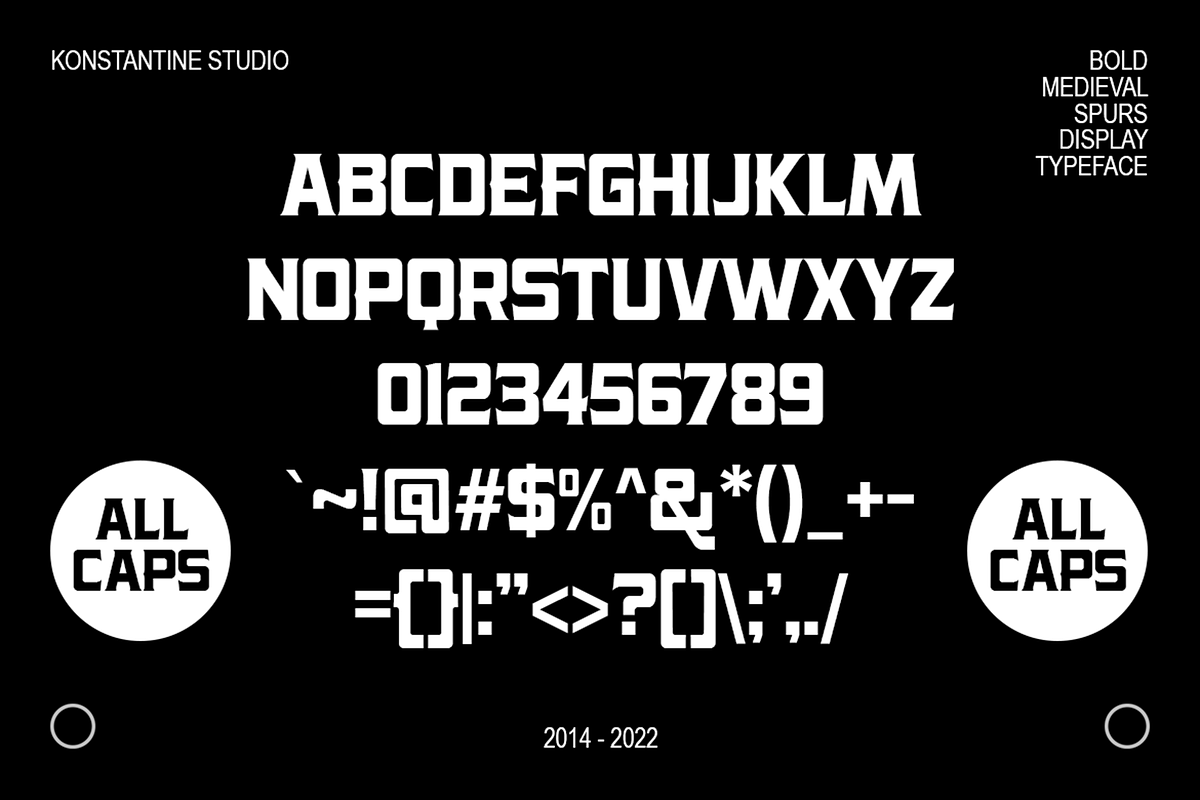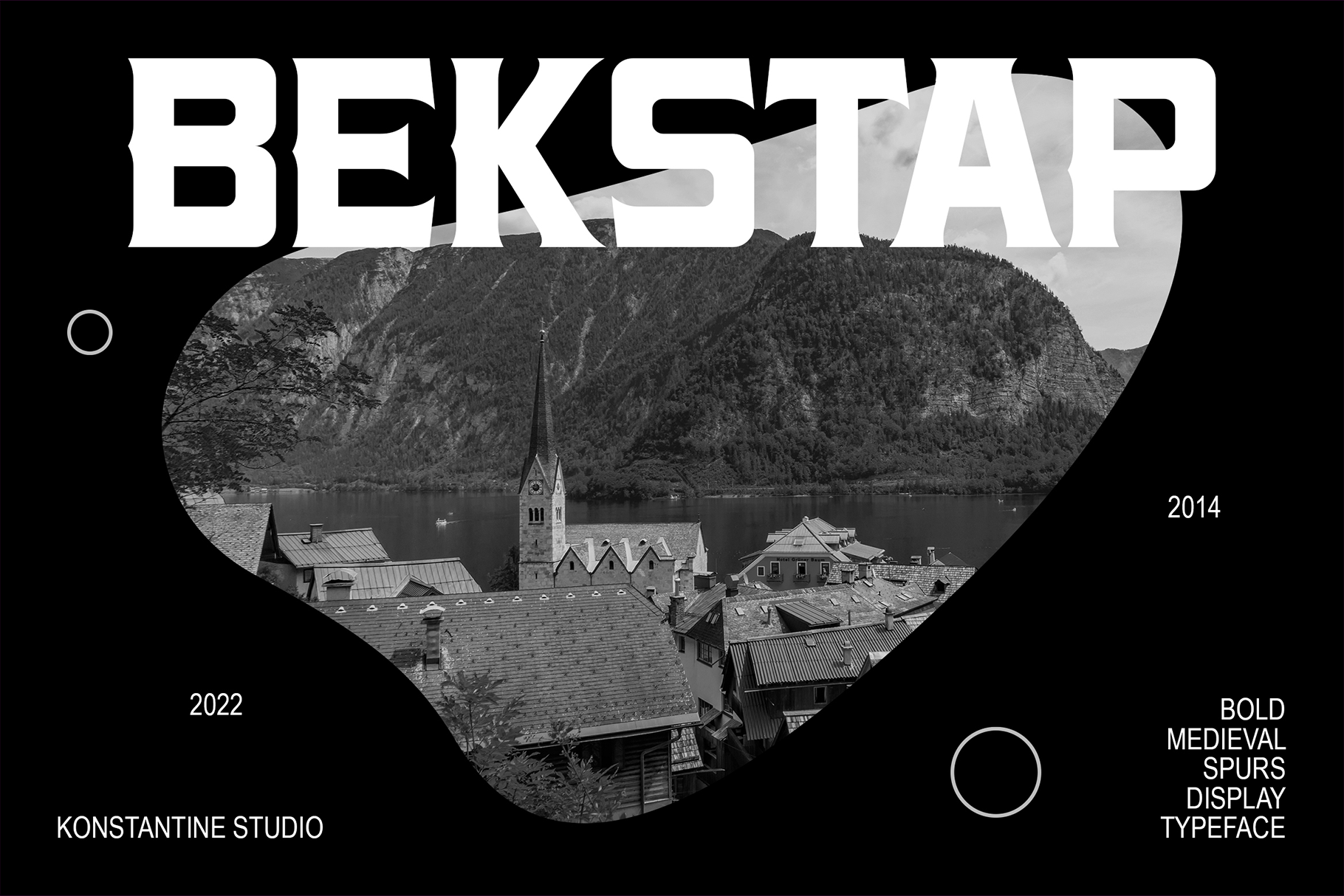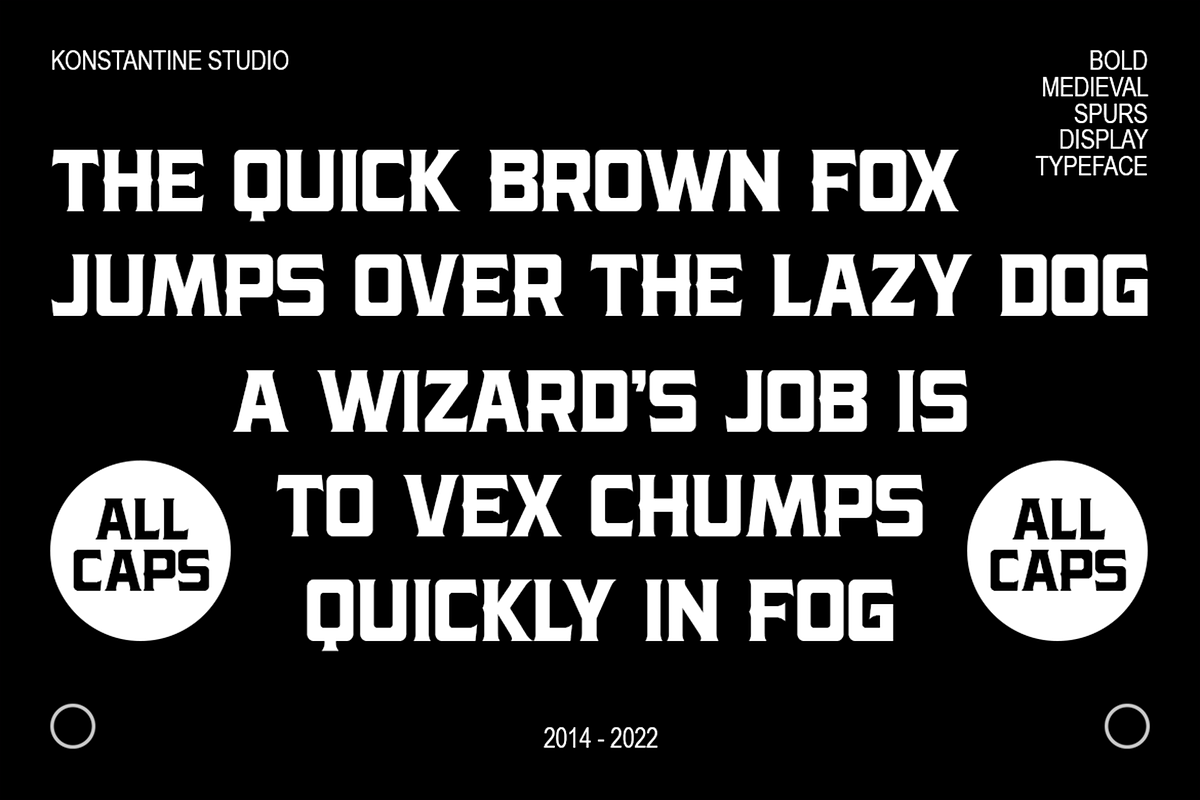
Bekstap – Bold Vintage Serif Fonts
Elevate Your Brand with BEKSTAP
Introducing BEKSTAP, an innovative serif typeface that commands attention with its bold and robust design. Perfectly blending vintage charm with modern aesthetics, BEKSTAP is crafted to enhance your visual branding with a timeless appeal.
Why Choose BEKSTAP?
- Bold Presence: Make a statement with BEKSTAP's strong and striking serif design, ensuring your brand stands out in any medium.
- Versatile Design: Seamlessly integrate BEKSTAP into a variety of projects, from digital to print, thanks to its unique blend of classic and contemporary styles.
- Long-Term Impact: Designed for longevity, BEKSTAP offers endless possibilities for creative expression, making it an ideal choice for enduring brand identity.
- Visual Branding: Create a memorable brand identity that resonates with audiences across generations.
- Creative Projects: Add a touch of elegance and strength to your designs, whether for logos, headlines, or editorial layouts.
Unlock the potential of your brand with BEKSTAP, where vintage meets modern for a future-proof design.
Explore the possibilities and make BEKSTAP your go-to typeface for impactful and lasting visual communication.